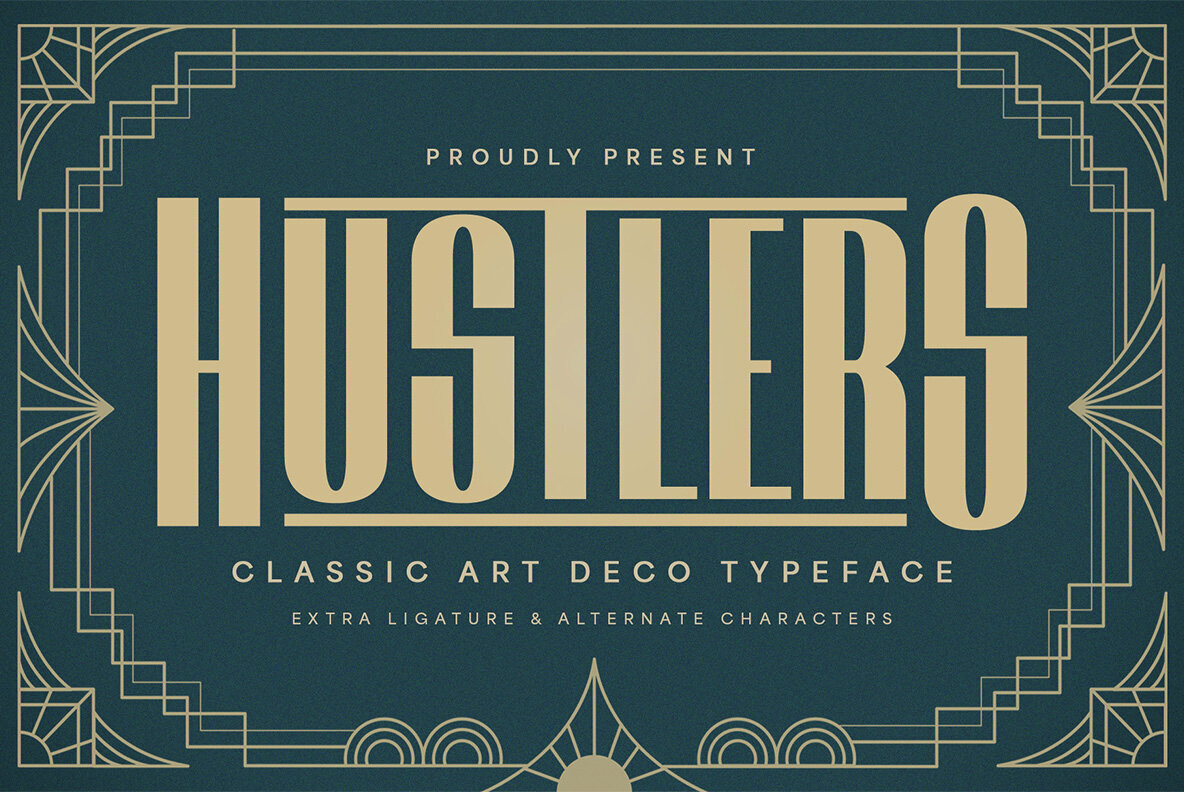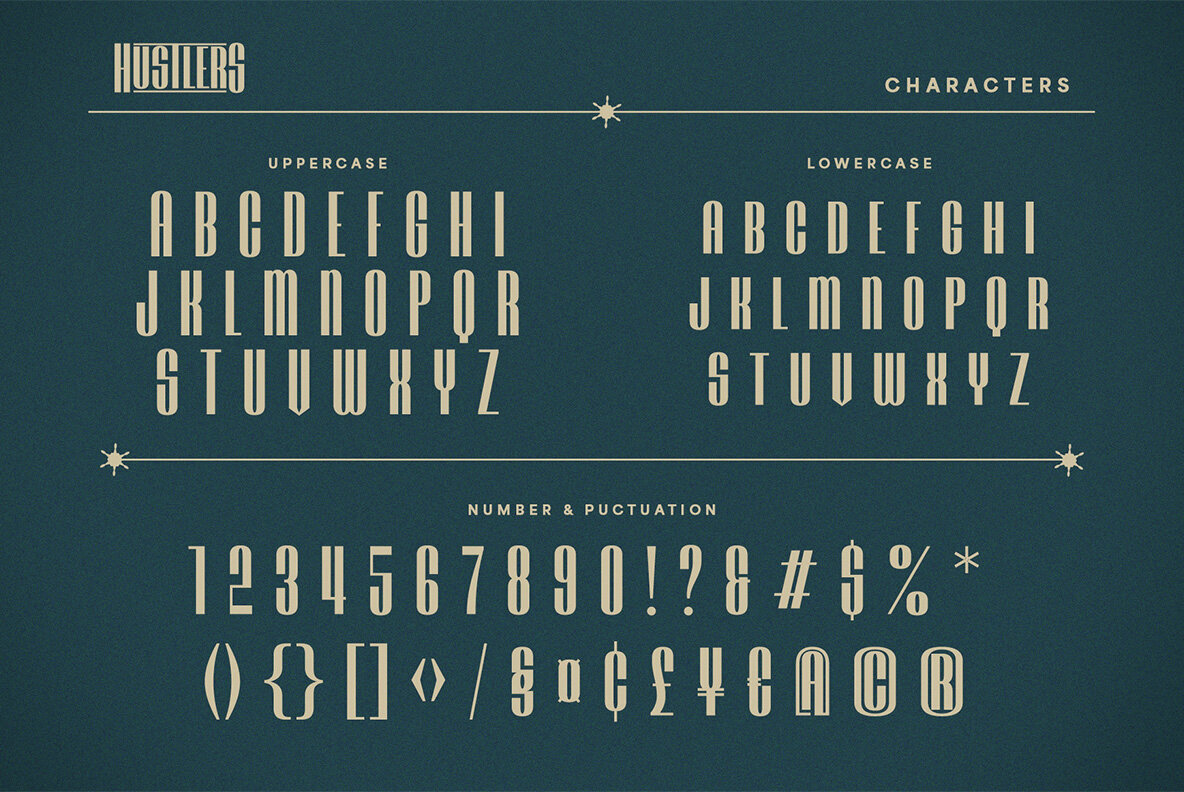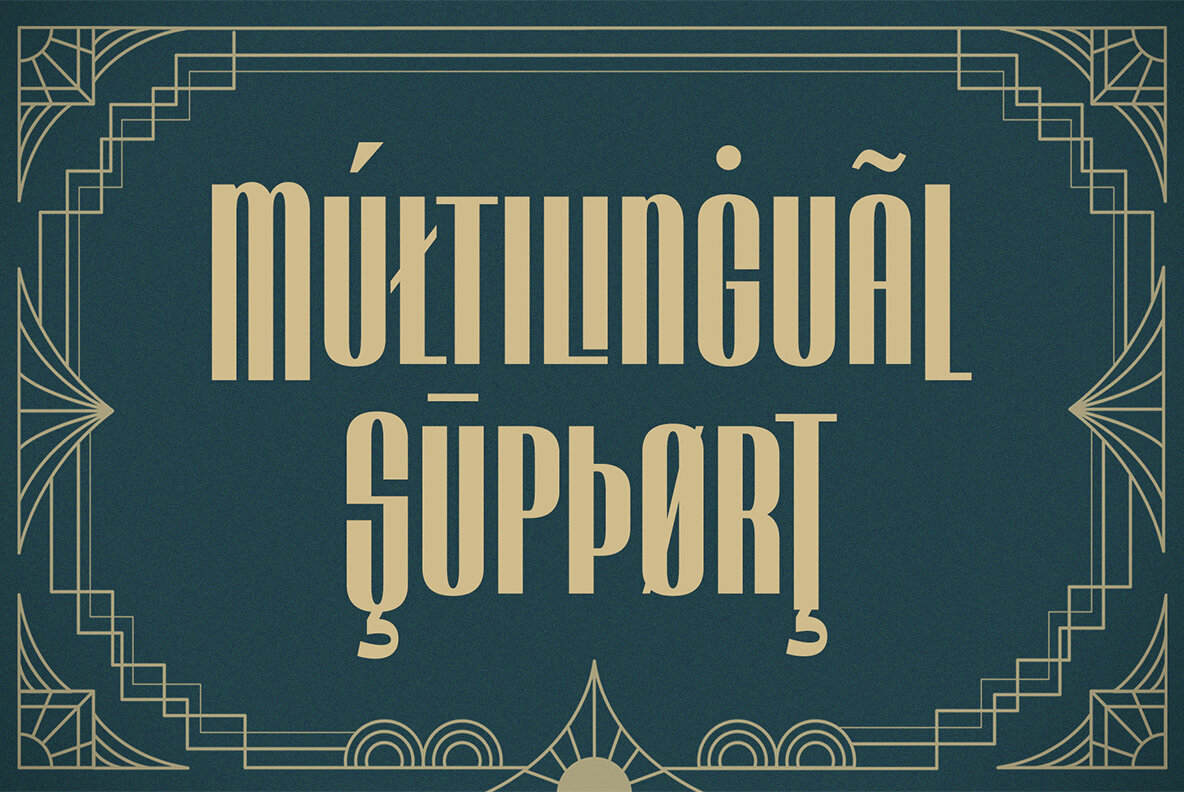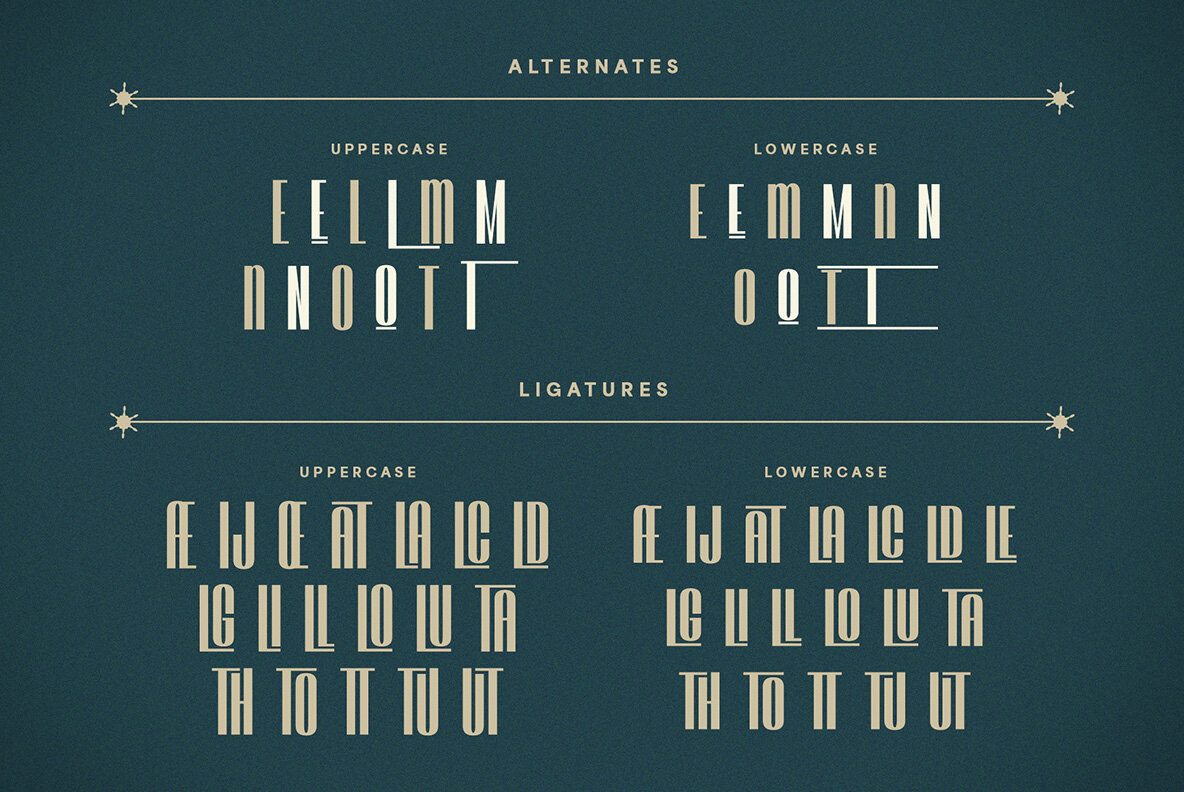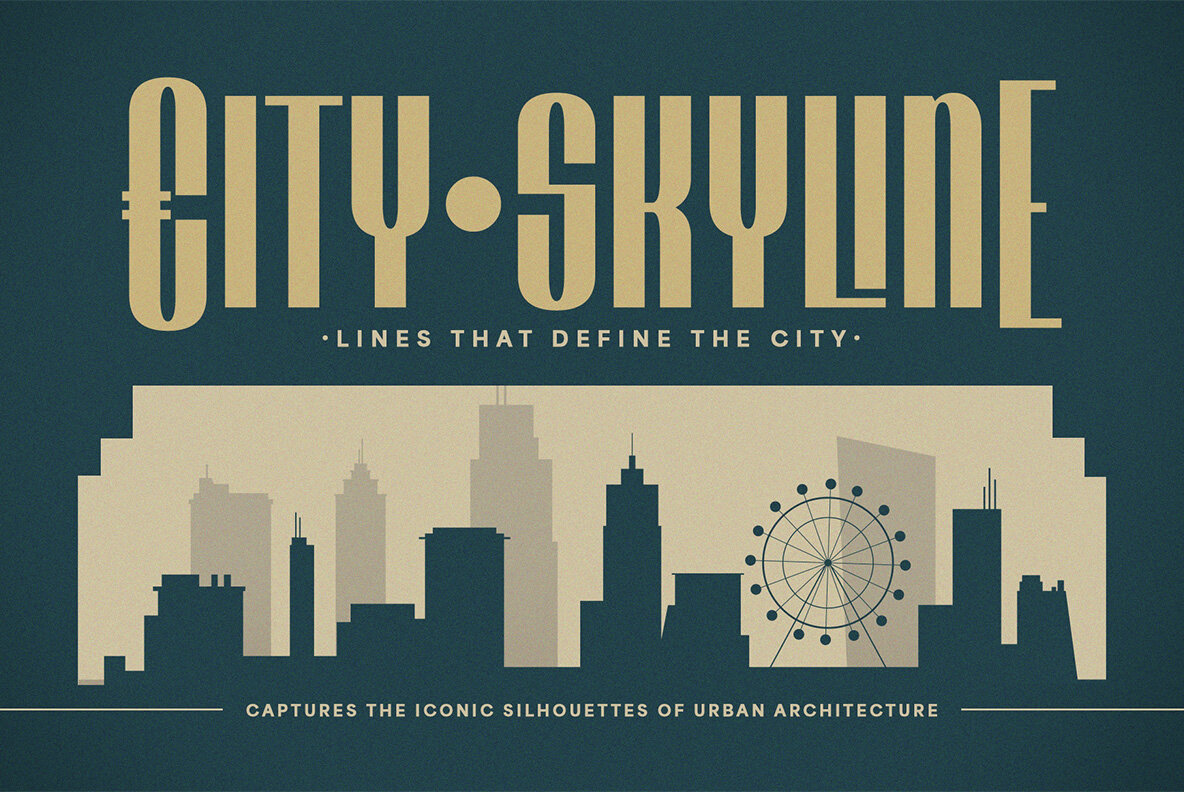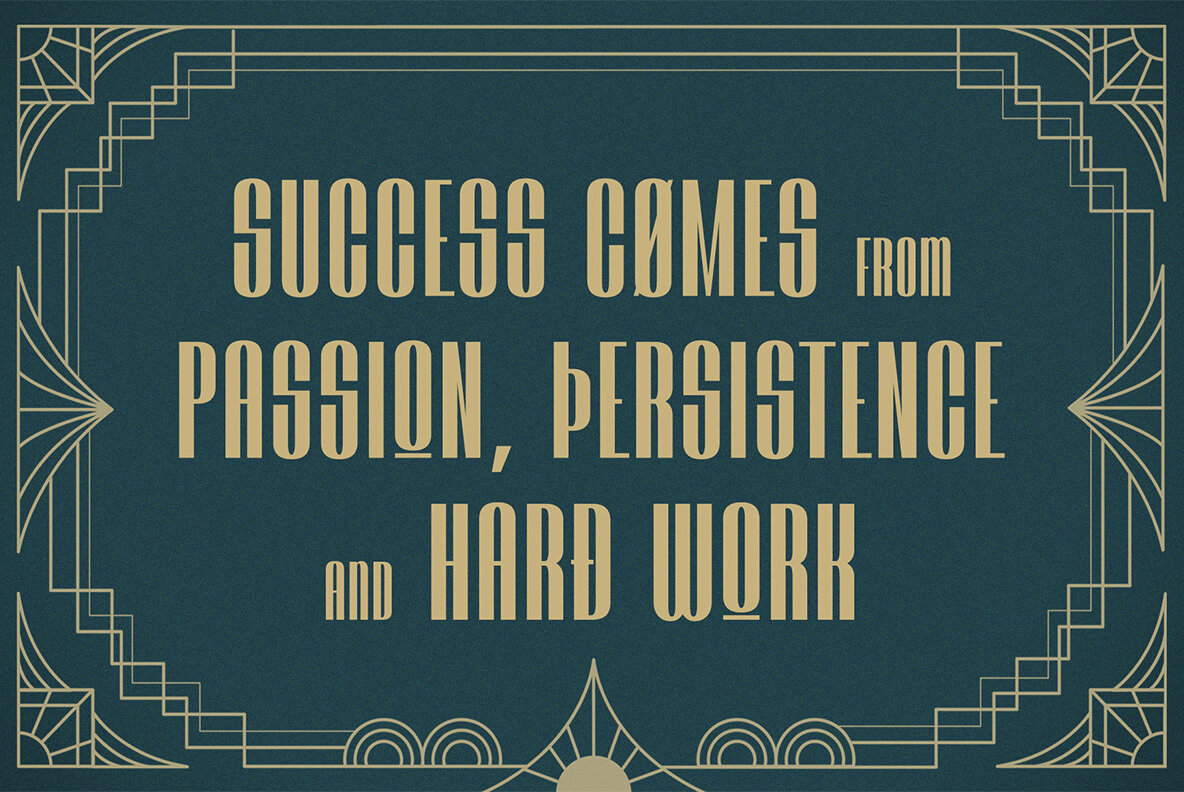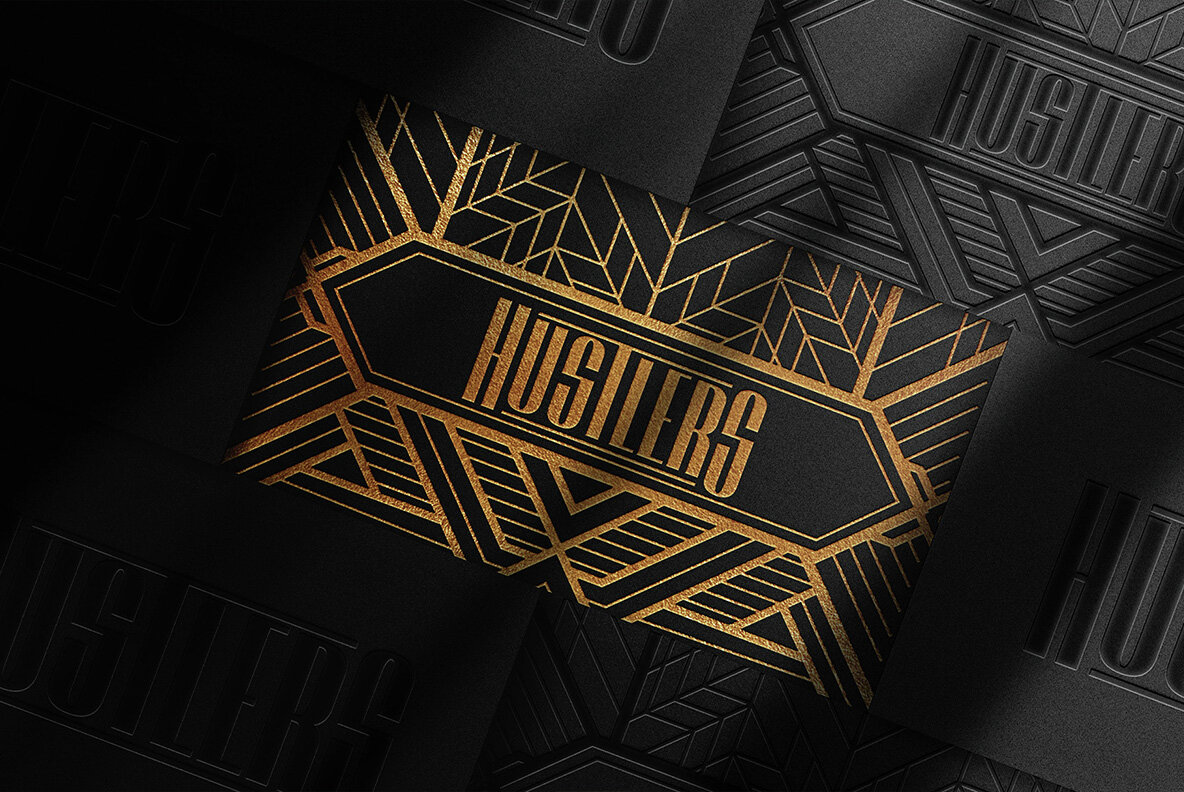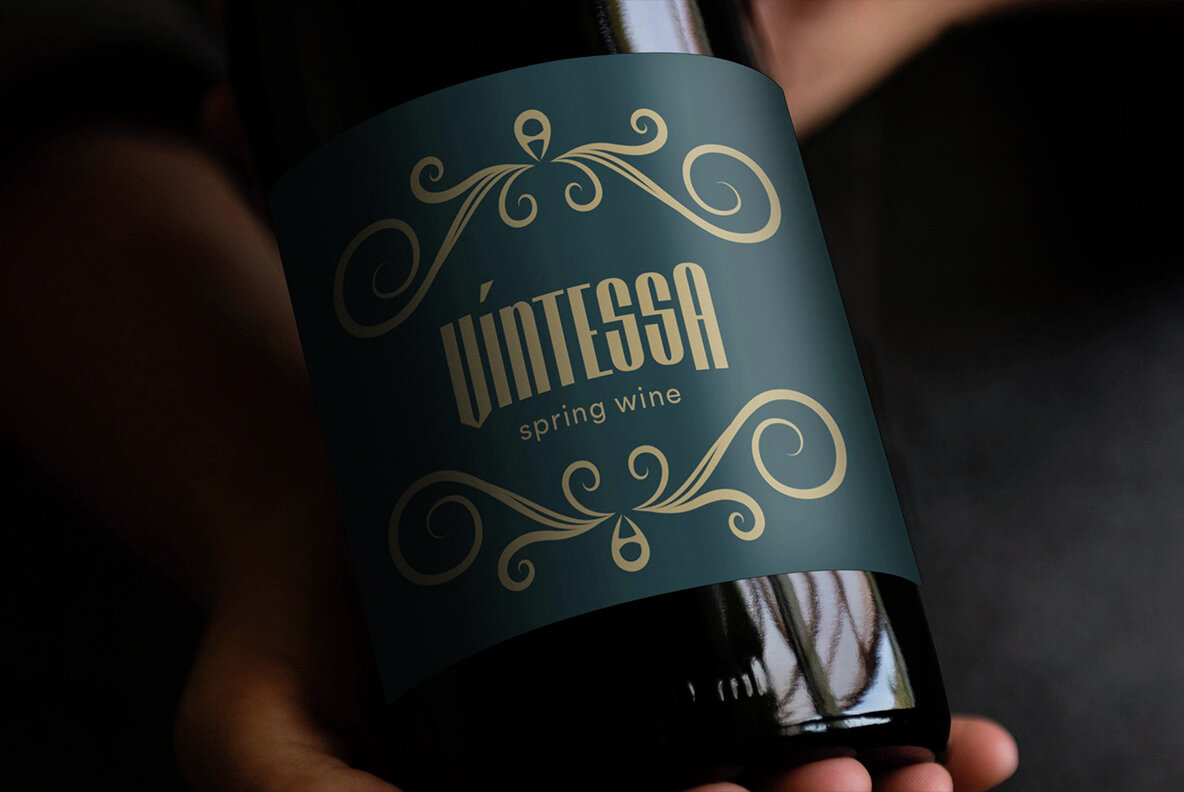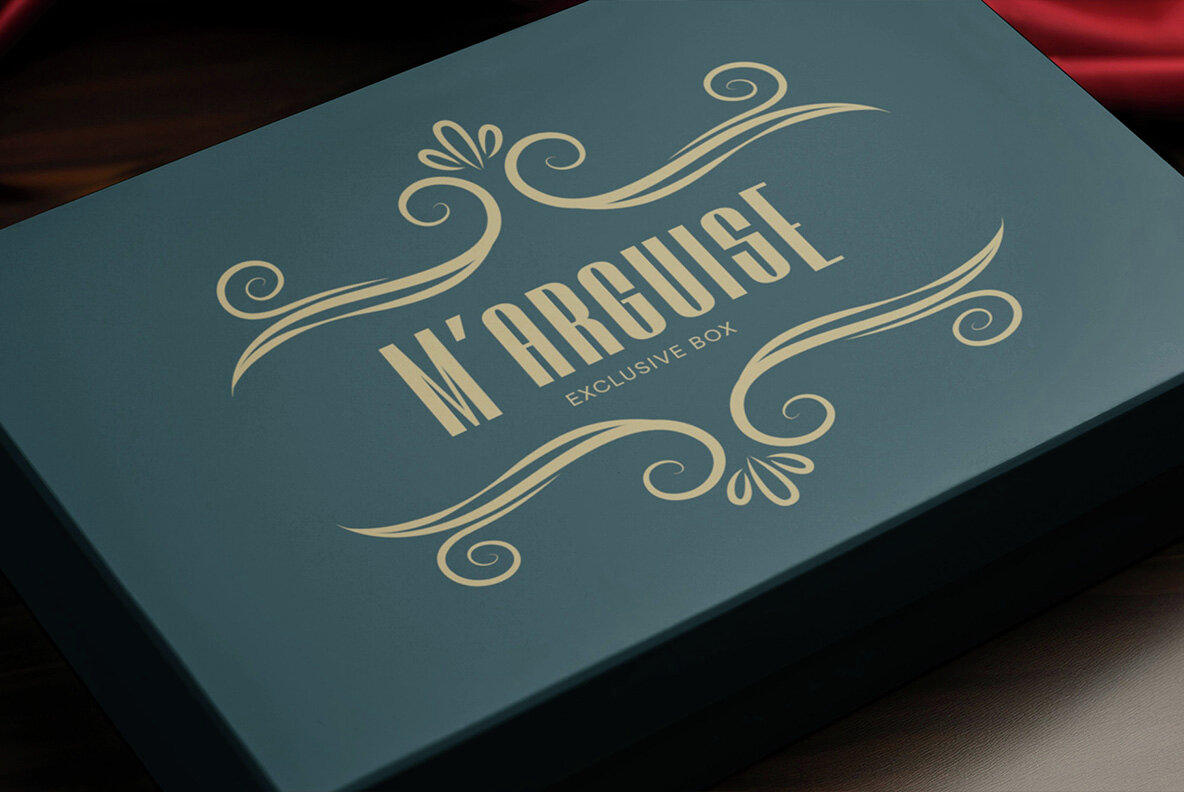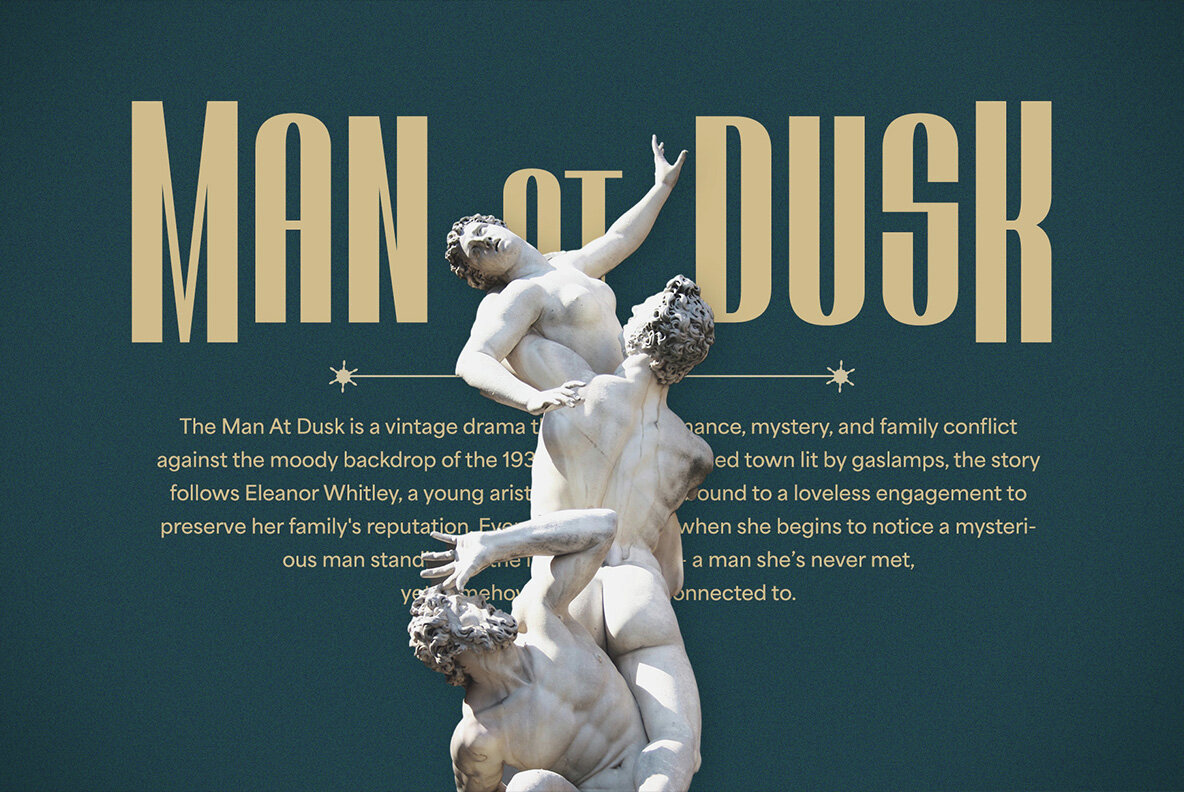
Hustlers Font
Hustlers Regular
Step back in time with Hustlers, a bold and sophisticated typeface capturing the glamour and grandeur of the roaring twenties. Perfect for vintage branding, movie posters, jazz club promotions, and editorial headlines, Hustlers brings an authentic retro yet modern feel to any project. Its strong geometric forms and elegant lines create impactful visuals while ensuring excellent readability. Unlock immense creative flexibility with extra ligatures and alternate characters offering unique stylistic variations. Designed for designers aiming to capture the luxurious charm of the Art Deco era with a contemporary twist, Hustlers is perfect for logos, headlines, and branding.Hustlers: A Classic Art Deco Typeface